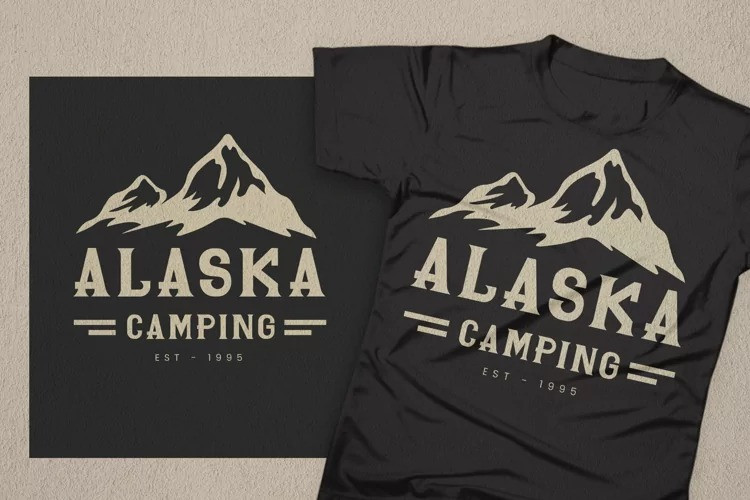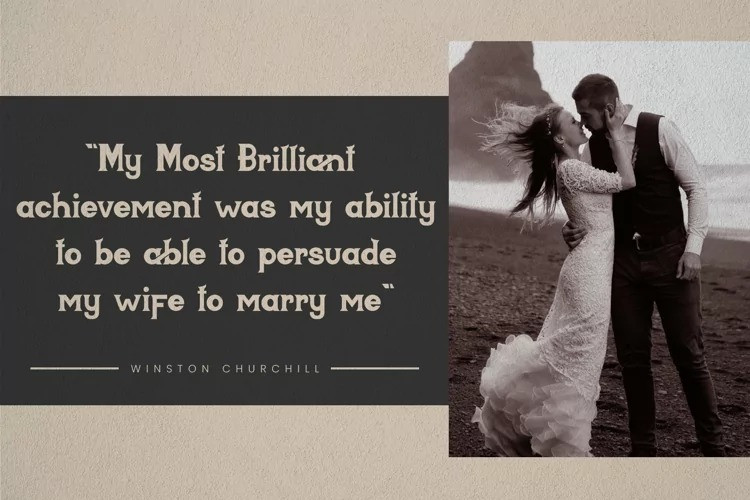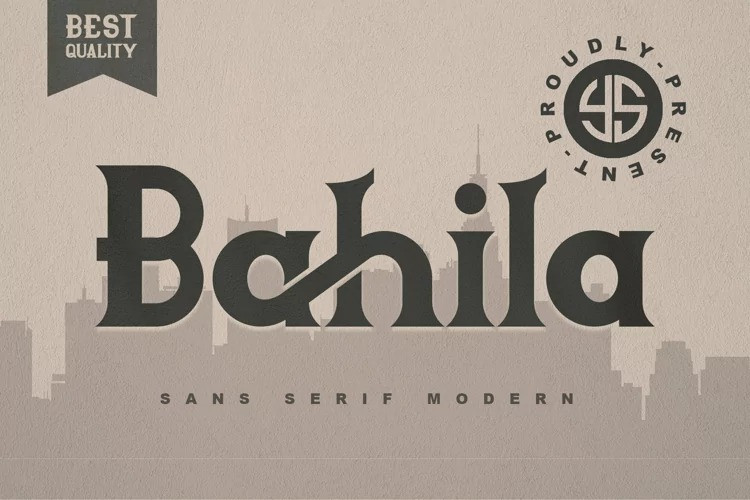
Bahila Serif Font
Bahila is a modern tupeface sans serif that has several creative variants, which will make the design extraordinary and improve the design quality.